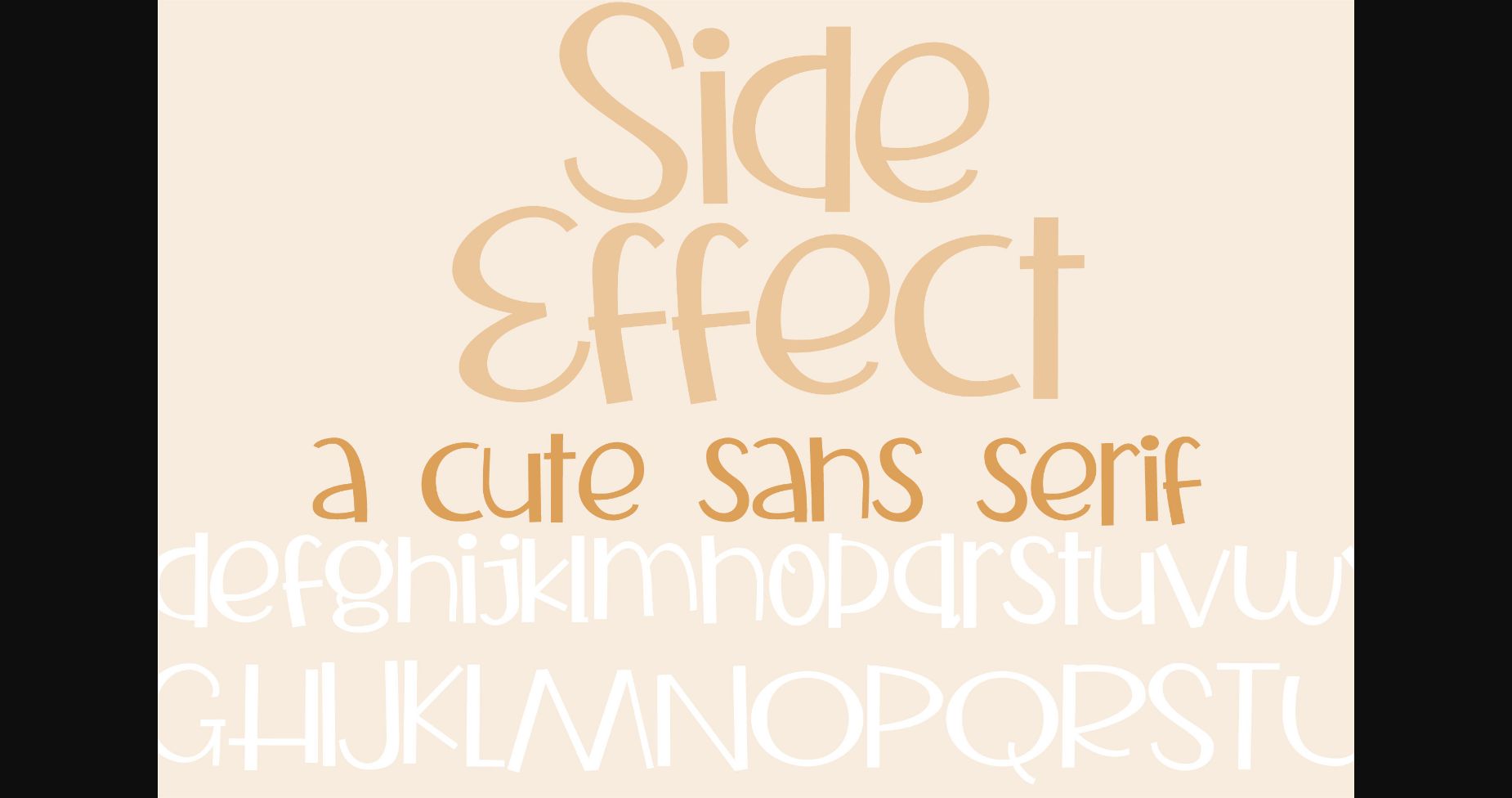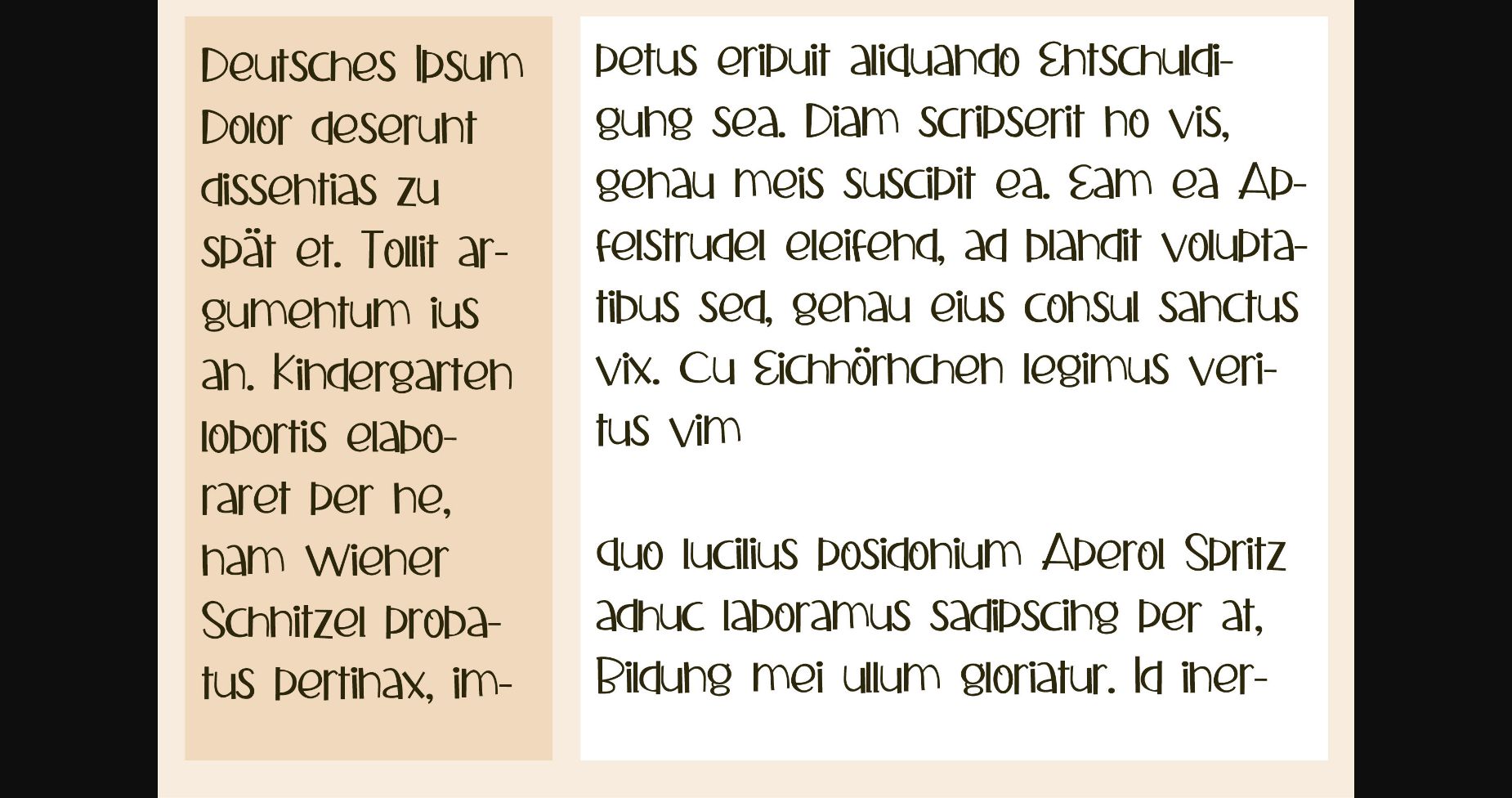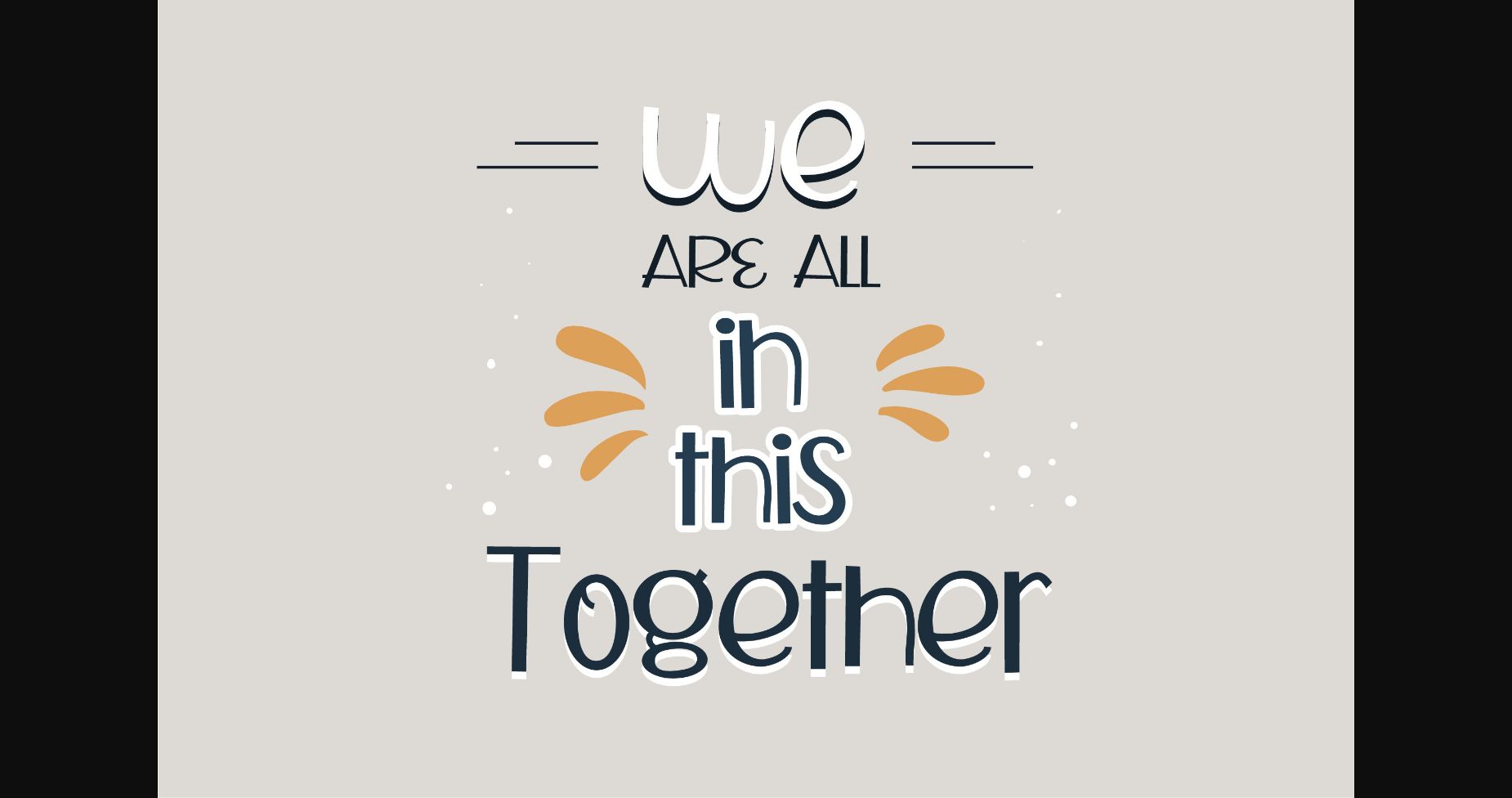
About ZP Side Effect Font
This cute sans serif font has no descenders in the lowercase.
A bold version is included so you can use it for banners, covers, and other display purposes.